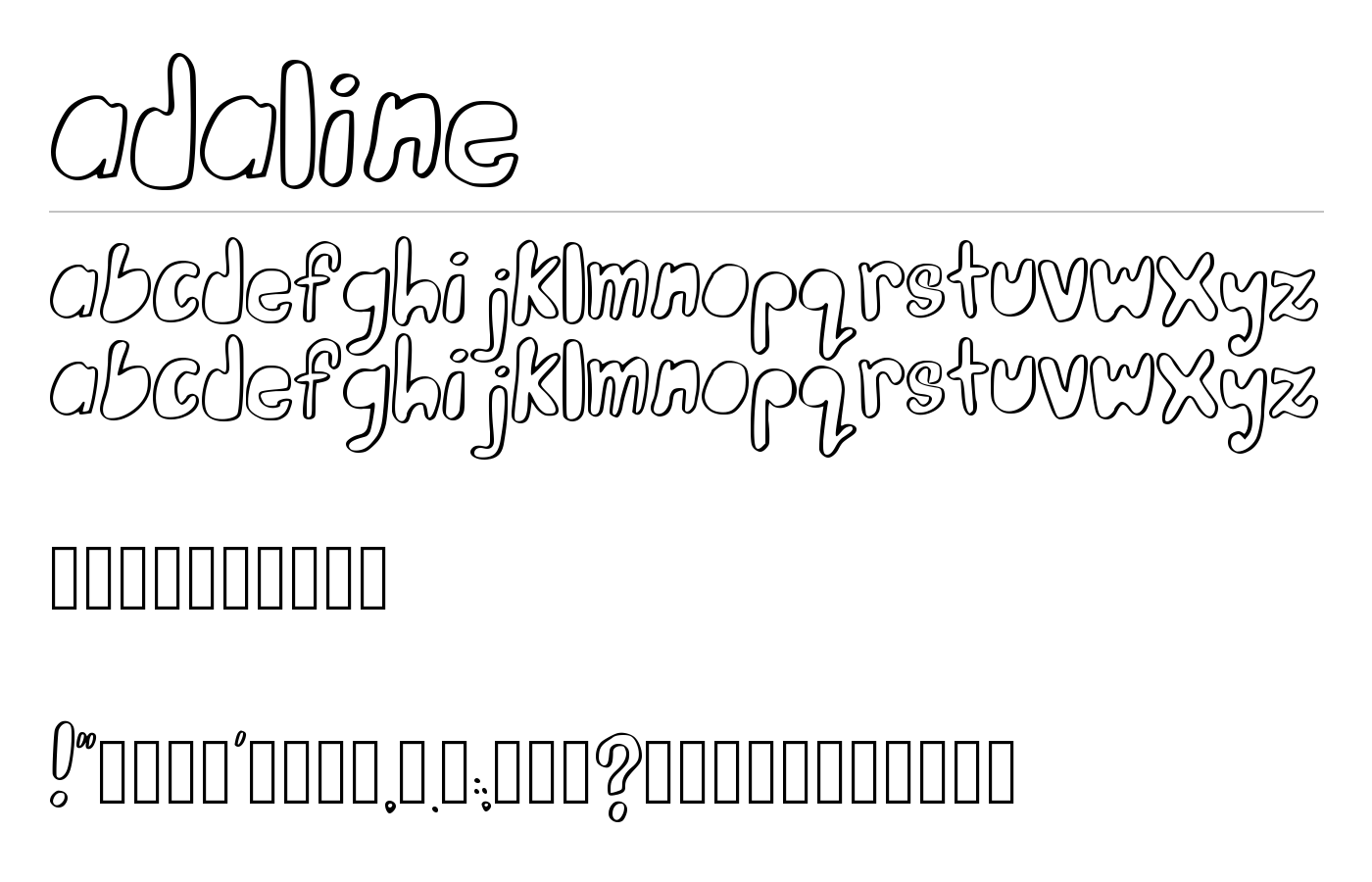
Adaline is a playful and casual handwritten sans serif font characterized by its loose, rounded letterforms and outlined strokes that give it a light and airy feel. Its informal style makes it perfect for creative projects, children's designs, and friendly, approachable branding where a touch of whimsy and personality is desired. This font works well in headlines, logos, and packaging that aim to convey fun and creativity.
Adaline Font
About Adaline Font